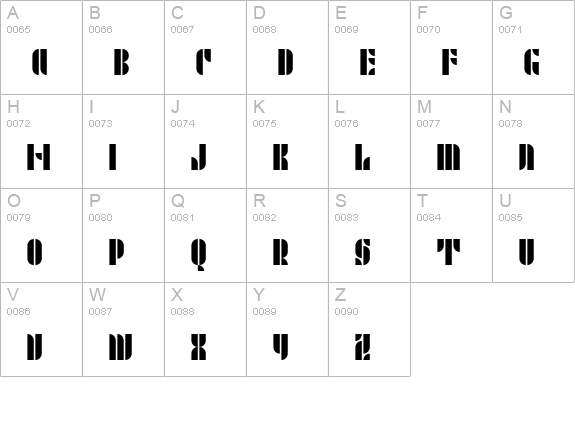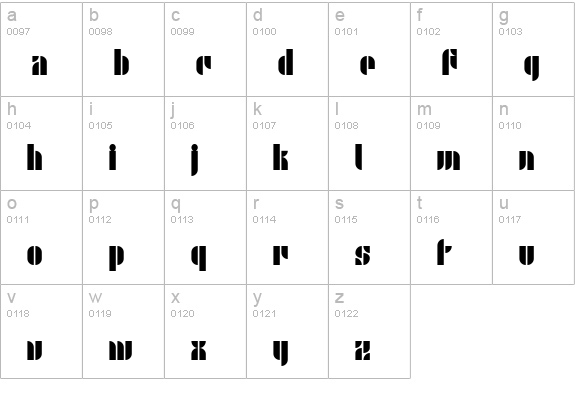
P22 Albers One Font Details
P22 Albers One font is a stunning typeface that embodies the timeless elegance and artistic precision of the renowned artist Josef Albers. This captivating font is a perfect blend of geometric shapes and clean lines, creating a harmonious balance that effortlessly catches the eye. Designed with utmost attention to detail, P22 Albers One font exudes a sense of modernity, making it ideal for a wide range of design projects. Whether it's for branding, editorial design, or web graphics, this font adds a touch of sophistication and professionalism to any layout. The versatility of P22 Albers One font lies in its ability to adapt to various design styles. Whether you're going for a minimalist, contemporary look or a more classic, vintage vibe, this font effortlessly complements any aesthetic, making it a valuable tool in the hands of designers and creatives. What makes P22 Albers One font even more enticing is the fact that it is freely available to download at FontsMarket.com. This means that designers and enthusiasts alike can access this exceptional font without any cost, allowing them to explore its countless possibilities without limitations. With its sleek, timeless design and its availability as a free download, P22 Albers One font is a must-have for any designer who seeks to elevate their work to new heights. So why wait? Download this remarkable font today and let your creativity soar.